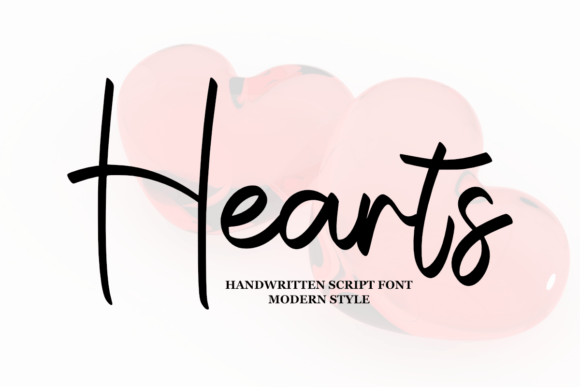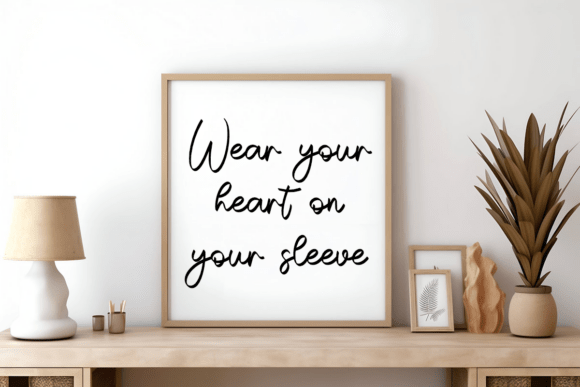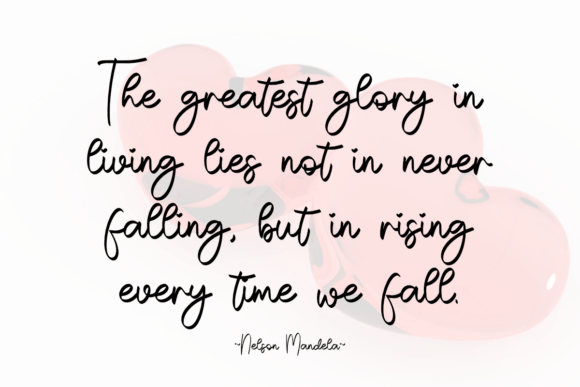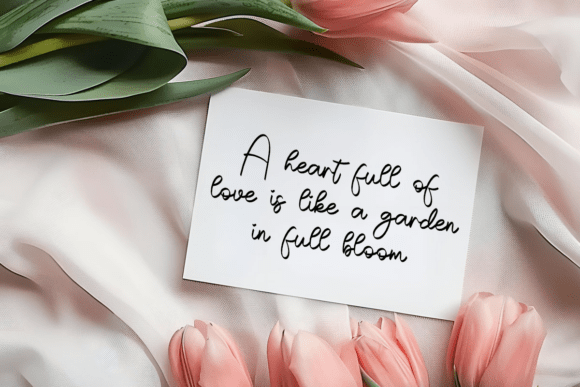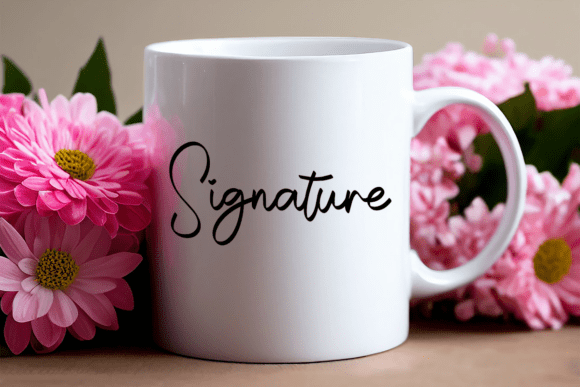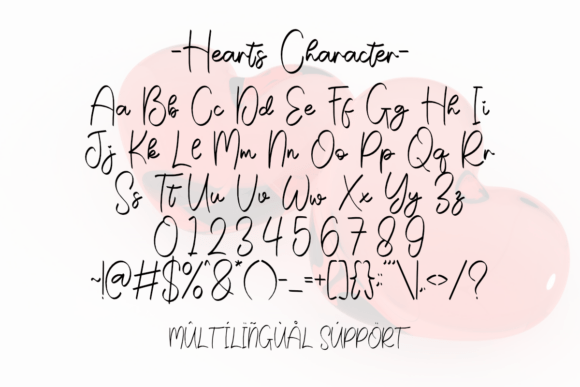
When Love is in the Details: Discovering the Beauty of Hearts Font
Have you ever been in a creative flow, surrounded by endless possibilities, and suddenly, a font speaks to you? For designers, that moment is priceless. It’s when a single font can elevate an entire project, turning a simple idea into a masterpiece. That’s exactly what happens when you meet the Hearts Font – a sweet and cursive handwritten font that will steal your heart.
The Hearts Font is more than just a pretty face; it’s a versatile tool that adds a touch of joy and romance to any design. Whether you’re creating a branding logo, a wedding invitation, or a marketing campaign, this font is sure to impress. Its gentle curves and elegant lines make it perfect for designers who want to add a touch of whimsy and sophistication to their projects.
Hearts Font Key Features
- Unique Characteristics: Hearts Font features a unique, handwritten design with intricate details and flourishes, adding a touch of elegance and sophistication to any text-based design.
Designer Review: Hearts Font
Hearts Font is a beautiful and elegant typeface that exudes a sense of whimsy and romance. I was immediately drawn to its intricate details and ornate design. ✨ The script-like feel of the font is perfect for creating a sense of luxury and sophistication, making it ideal for wedding invitations, valentines day cards, or any other project that requires a touch of elegance.
One of the standout features of Hearts Font is its versatility. It can be used in a variety of settings, from formal events to casual gatherings. The font is also highly customizable, allowing designers to adjust the size, color, and style to suit their needs. ✨ This makes it an excellent choice for designers who value flexibility and adaptability.
While Hearts Font is an excellent choice for many projects, there are some limitations to consider:
- ⚠️ The font may not be suitable for large blocks of text, as it can become overwhelming and difficult to read.
- ⚠️ The font is not optimized for digital use, making it less suitable for web design or mobile apps.
Overall, I would highly recommend Hearts Font for designers who value elegance and sophistication. While it may have some limitations, the font’s unique design and versatility make it a valuable addition to any designer’s toolkit. With some careful consideration and planning, Hearts Font can be used to create truly stunning and memorable designs.
The Hearts Font is ideal for Valentine’s Day, love-themed, and romantic designs. Use it to create eye-catching headlines, titles, or body text. Experiment with different font sizes, colors, and combinations to create a unique look. Remember to pair it with a clean and simple design to avoid overwhelming the reader.